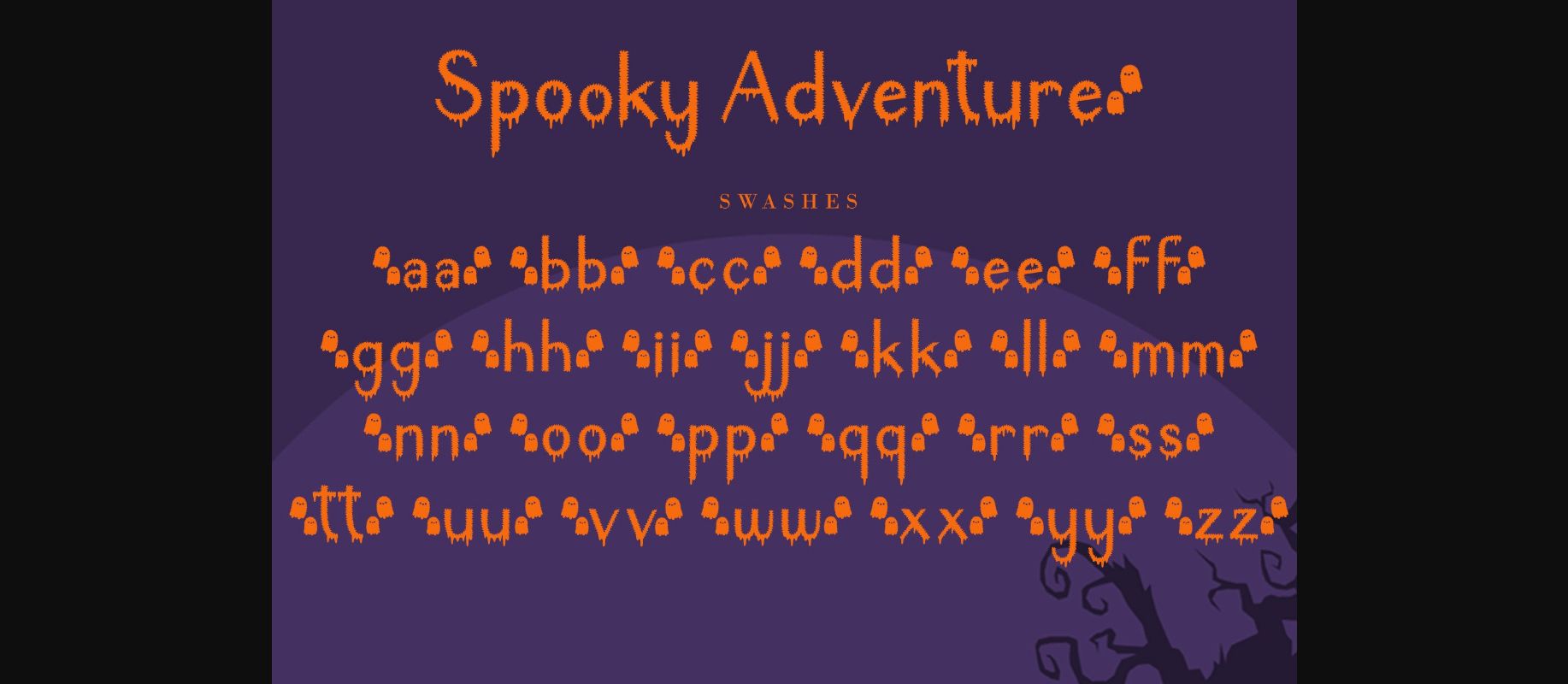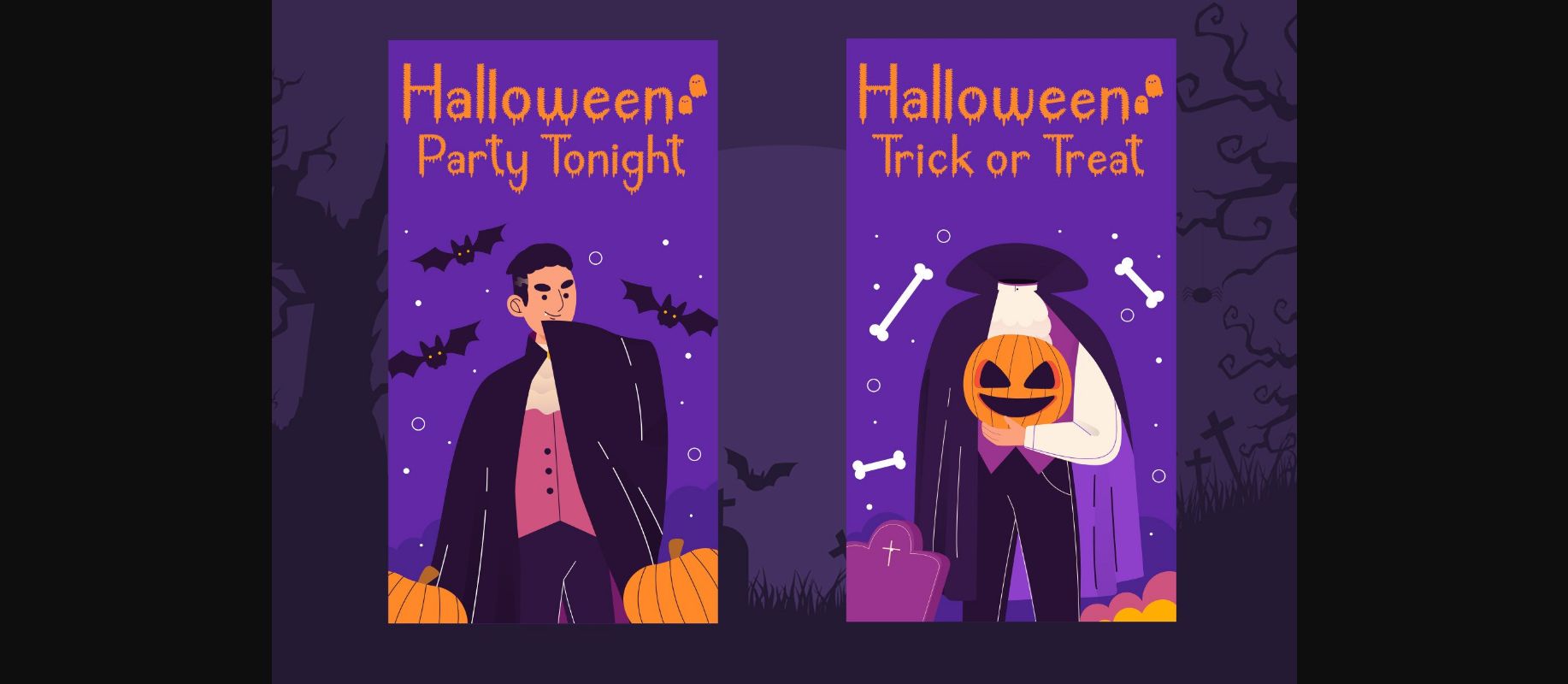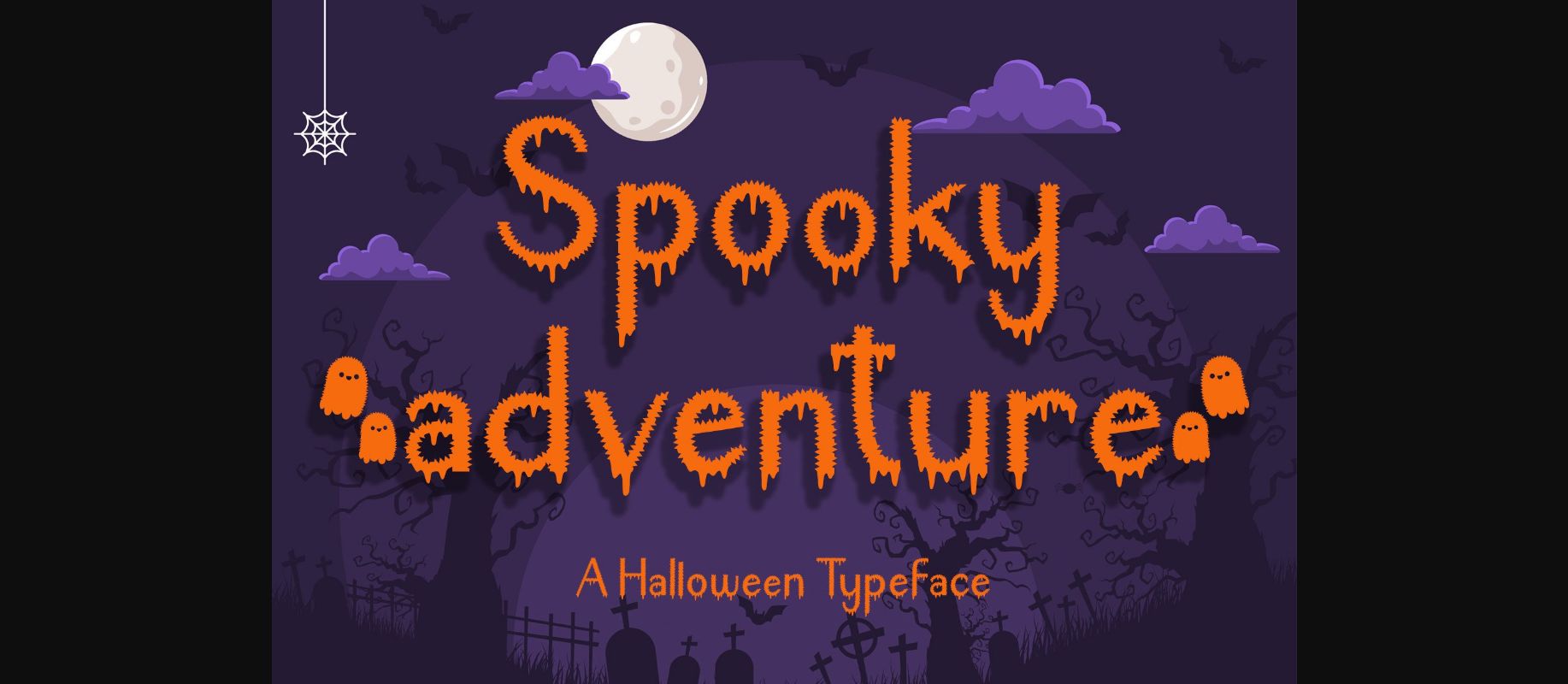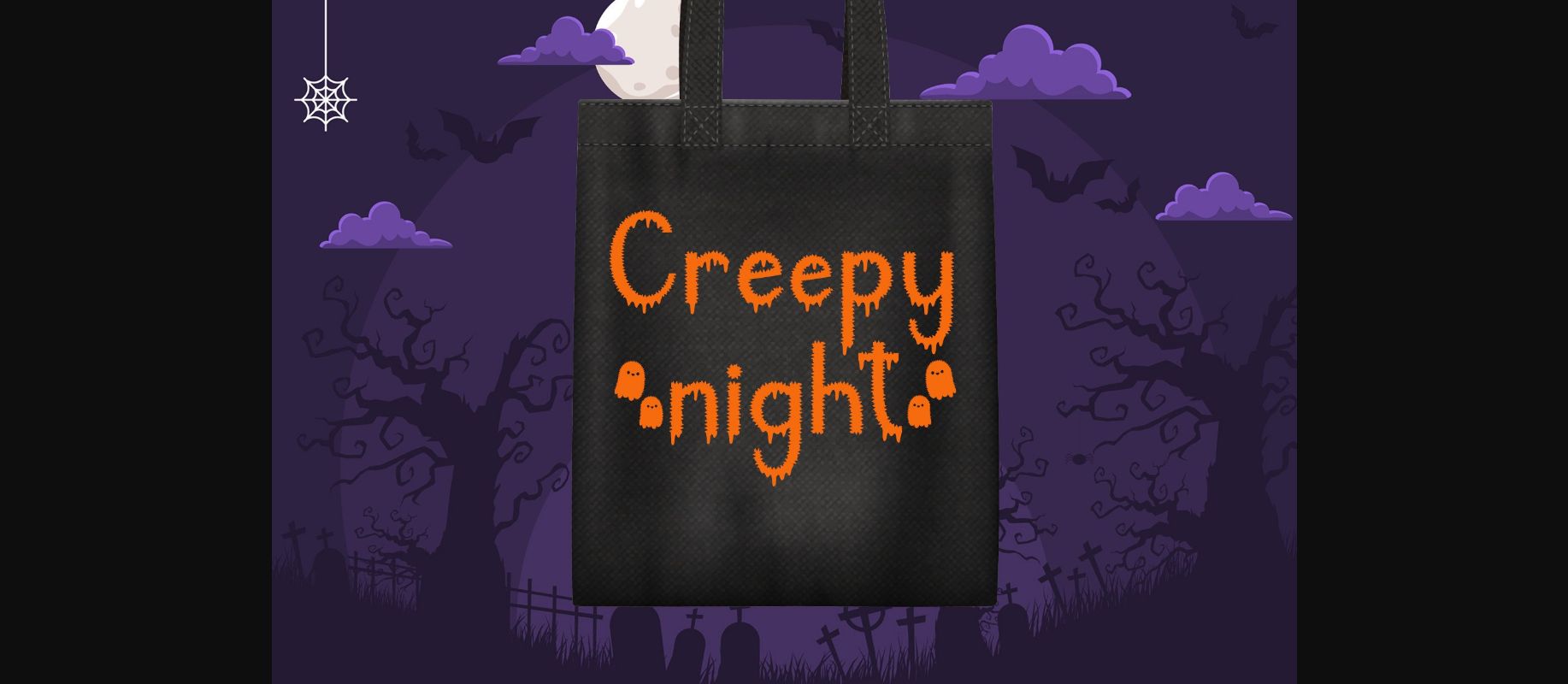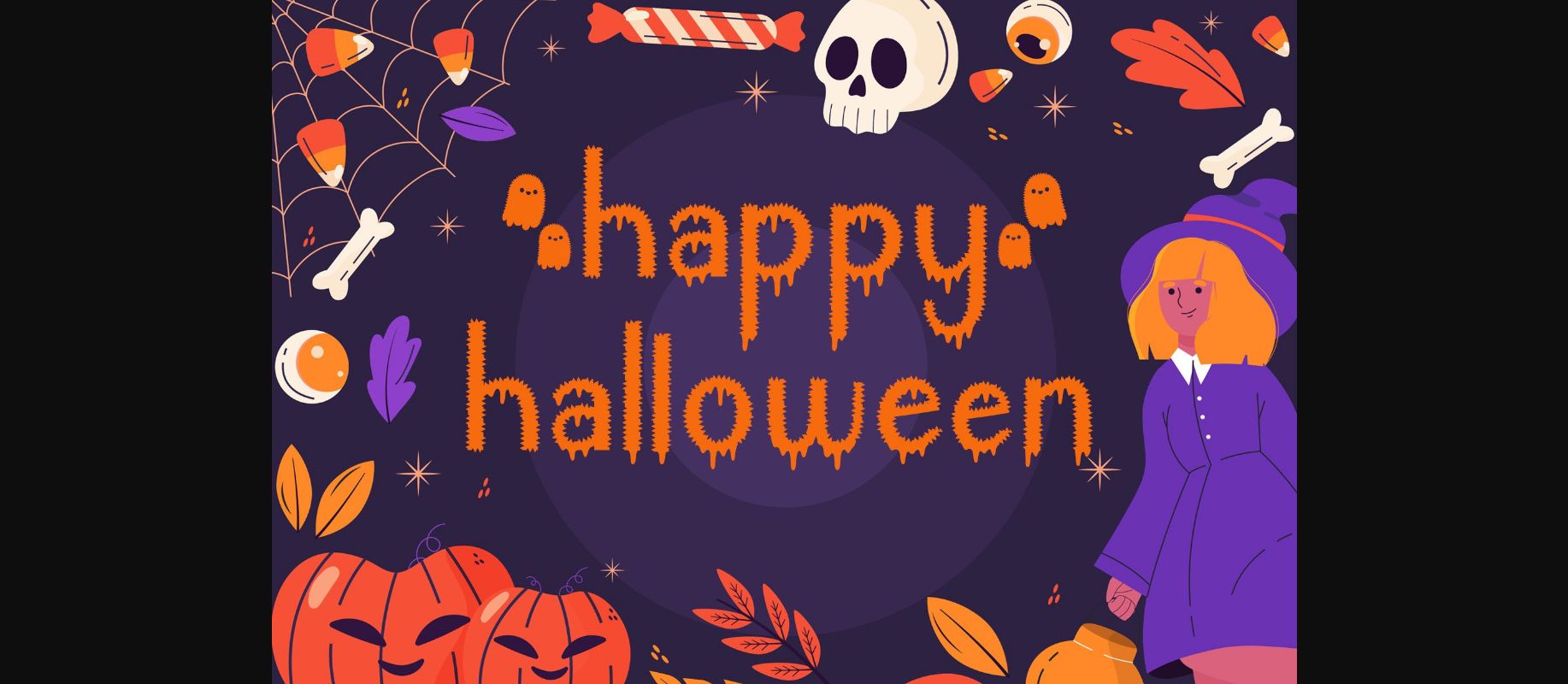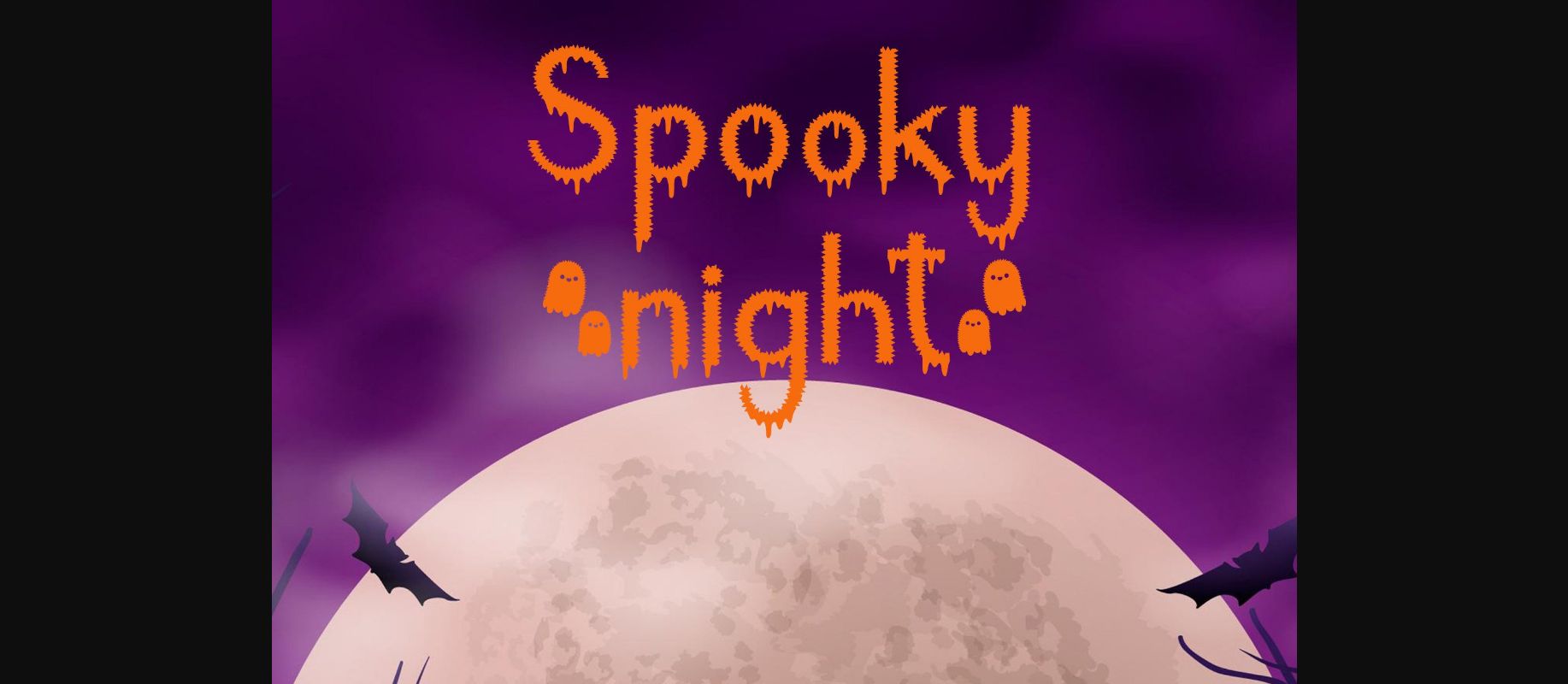
About Spooky Adventure Font
Spooky Adventure is a cool-lettered and spooky decorative font. It is perfectly suitable for any Halloween-related project or crafty idea. Add it confidently to your favorite creations and let yourself be amazed by the outcome generated!